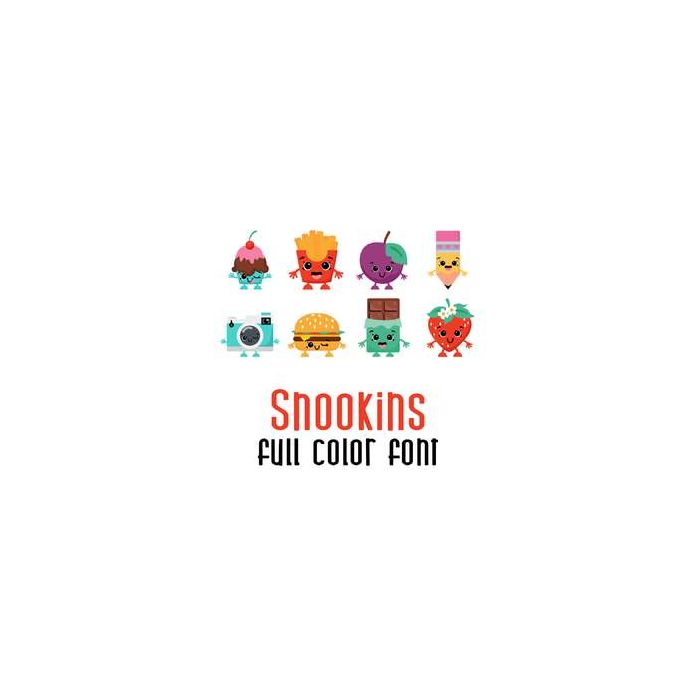
This fun doodlebat font features 26 adorable kawaii style every day items. Perfect for cards, gifts, decor, crafts, scrap book pages, planner stickers and more!